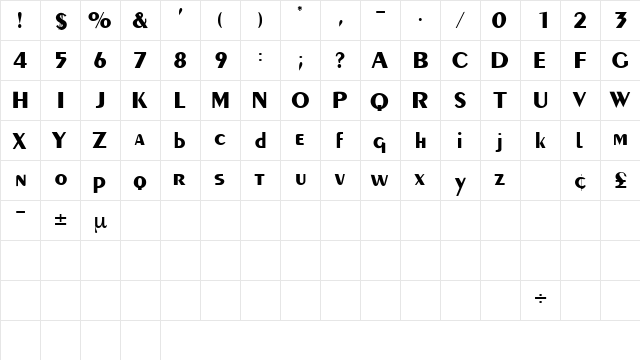
PaquetteDisplaySSK Regular
Design Context for PaquetteDisplaySSK Typeface
PaquetteDisplaySSK brings ornamental detail and strong personality to headlines and identities, where visual impact matters more than quiet functionality.
Font Pairing: Pair with a clean neutral sans-serif for body copy to let PaquetteDisplaySSK's character lead without overwhelming the composition.
Pro Tip: Use PaquetteDisplaySSK exclusively at display sizes — it was designed to be seen, not read at length. Let a neutral companion handle body copy.